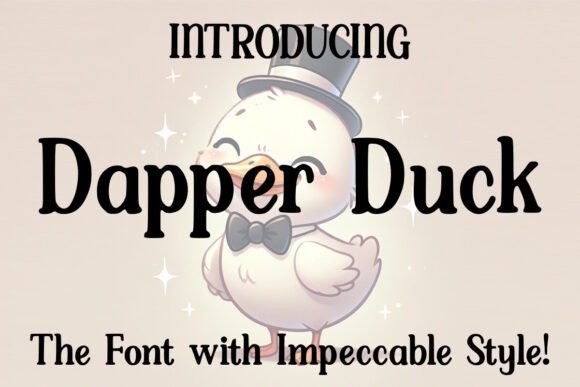
The Perfect Blend of Elegance and Whimsy: Introducing Dapper Duck Font
As a designer, have you ever stumbled upon a font that makes you feel like you’ve finally found the missing piece of a puzzle? For me, that moment came when I discovered the Dapper Duck Font. Its refined serifs and smooth, classic curves immediately caught my attention, and I knew I had to learn more.
With its undeniable charm, the Dapper Duck Font is the perfect addition to any design project. Whether you’re creating elegant invitations, branding, or printables, this font will add a touch of sophistication and whimsy to your work. As a designer, having access to a versatile and high-quality font like Dapper Duck Font can be a game-changer, allowing you to take your projects to the next level and stand out from the crowd.
- Unique Characteristics: The Dapper Duck Font features a playful, whimsical design with a mix of modern and vintage elements, making it perfect for creative projects and branding.
- Style Variations: The font includes multiple style variations, including Regular, Italic, Bold, and Bold Italic, providing designers with flexibility and options for different design applications.
Dapper Duck Font Review
Overall, I think the Dapper Duck Font has a lot of charm to it. It’s perfect for creating a fun and playful atmosphere in your designs. ✨ The rounded edges and soft curves make it a great choice for projects that require a touch of whimsy.
Here are some of the things that I think work well:
- The Dapper Duck Font has a high level of legibility, making it suitable for body text as well as headings.
- It’s incredibly versatile and can be used in a wide range of design projects, from logos to branding materials.
- The font has a fun and approachable feel to it, which makes it perfect for designs that need to appeal to a younger audience.
However, I do think that the Dapper Duck Font has some limitations:
- It may not be the best choice for formal or professional designs, as it can come across as a bit too playful.
- The font may not be as effective at smaller font sizes, where the rounded edges can become difficult to read.
- It’s not suitable for designs that require a lot of emphasis or hierarchy, as the font can become difficult to distinguish at larger sizes.
- Use Dapper Duck Font for headings and titles to add a touch of whimsy and playfulness.
- Pair Dapper Duck Font with a clean and simple font for body text to create a visually appealing contrast.
- Experiment with different font sizes and colors to add emphasis and create visual interest.
Overall, I think the Dapper Duck Font is a great choice for designers who want to add a bit of personality to their projects. While it may not be suitable for every design task, it’s a fun and versatile font that can add a lot of value to the right project.
Alternatives to Dapper Duck Font
The Great Vibes Font is a fun, cursive font perfect for creating a whimsical and playful atmosphere. It’s ideal for use in posters, advertisements, and other promotional materials where you want to convey a sense of excitement and energy.
Compared to Dapper Duck Font, Great Vibes Font is more elegant and refined, making it suitable for a wider range of applications. While Dapper Duck Font is more playful and cartoonish, Great Vibes Font has a more sophisticated feel.